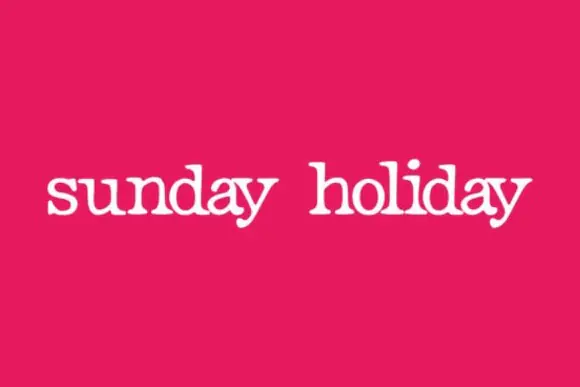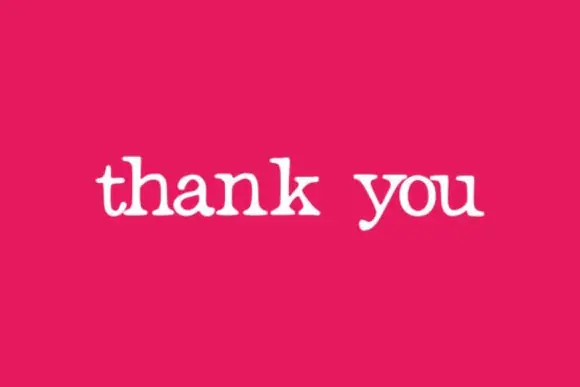
Create warm, romantic, and beautifully authentic designs with Bohemian Typewriter Font, a unique handwritten typewriter-style font crafted to bring personality, charm, and elegance into your creative projects. With its legible structure and soft handmade feel, this font is perfect for both stylish titles and readable body text.
Bohemian Typewriter Font works beautifully across many design styles, from romantic stationery to editorial layouts and modern branding. It is ideal for wedding invitations, greeting cards, magazine headlines, social media graphics, branding projects, quote designs, product packaging, labels, posters, journals, book covers, stationery, and creative print materials.
Its authentic handwritten character gives your text a personal, artistic, and slightly vintage feeling while still maintaining clarity and readability. Whether you are designing a romantic wedding card, a boutique brand identity, a magazine title, or a heartfelt social media quote, Bohemian Typewriter Font helps elevate your creative ideas with a refined and expressive look.